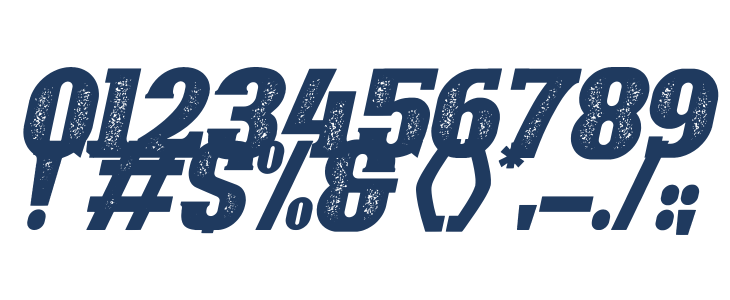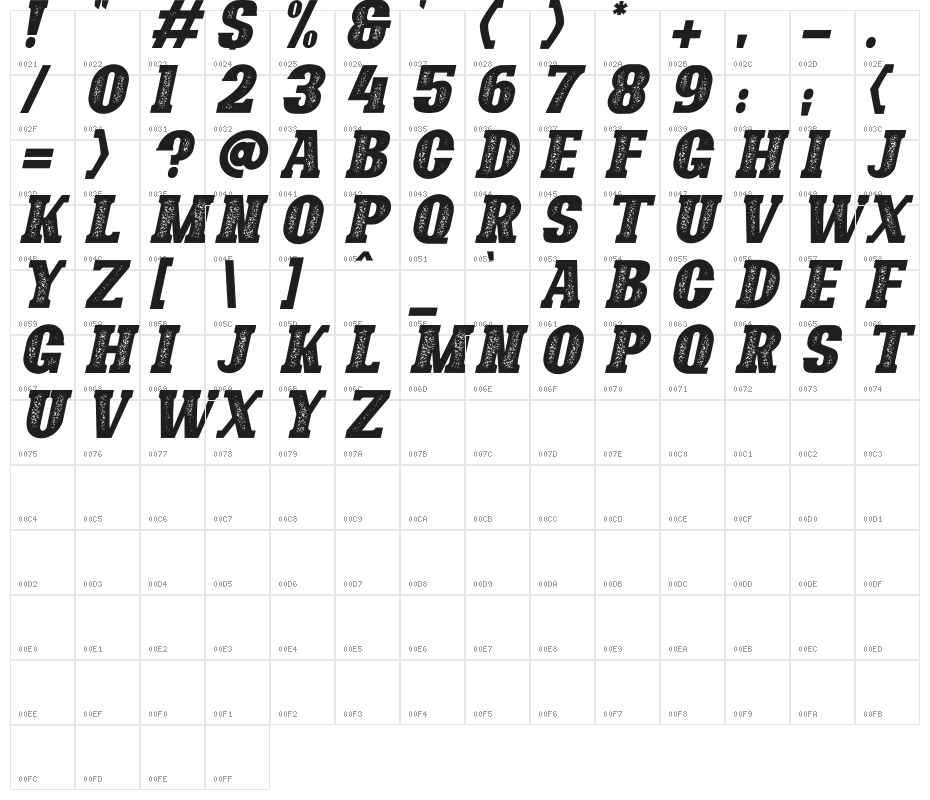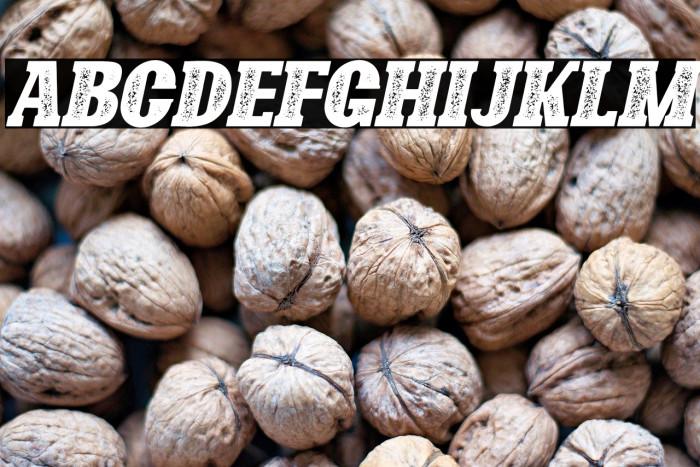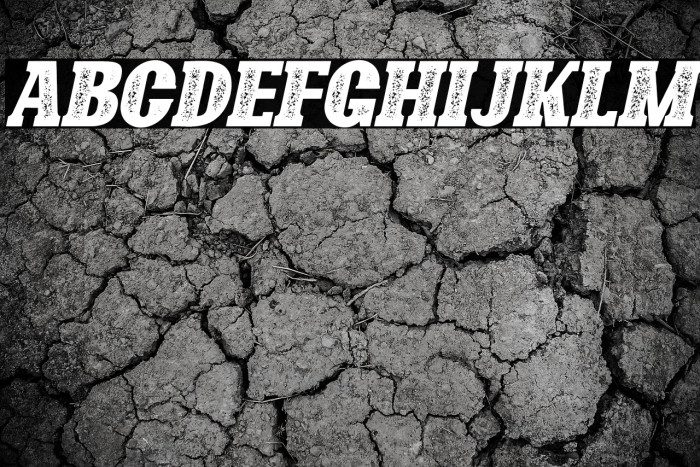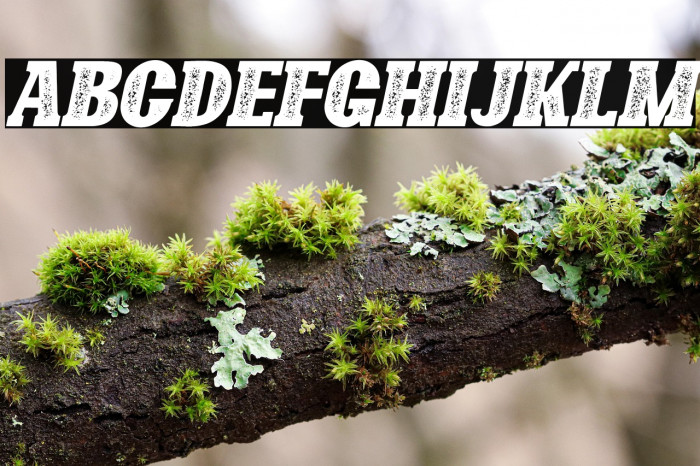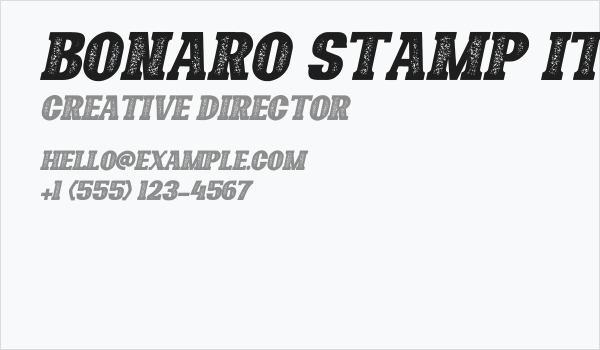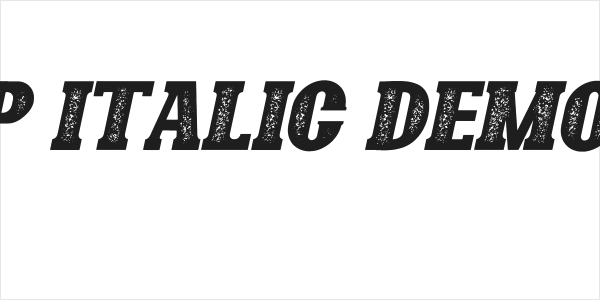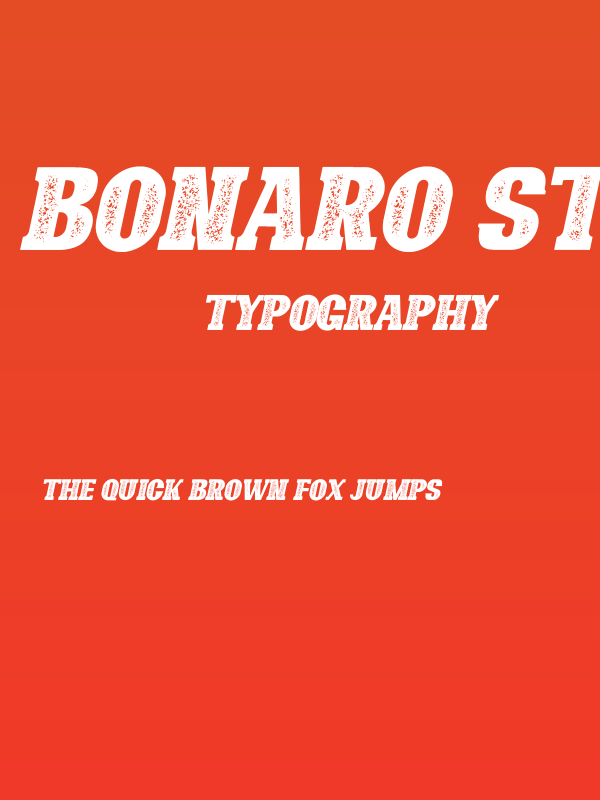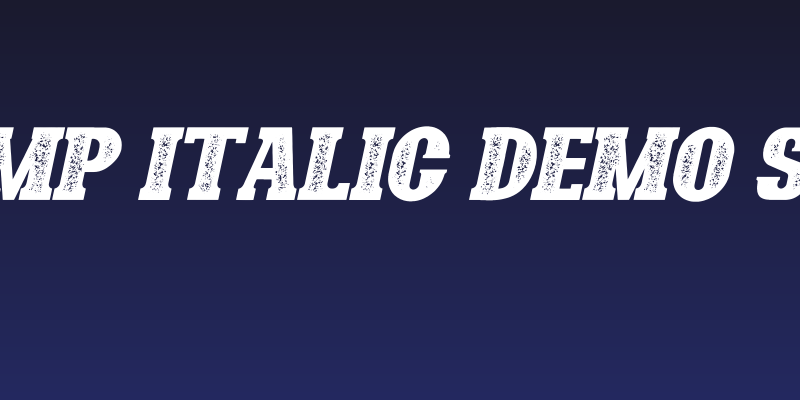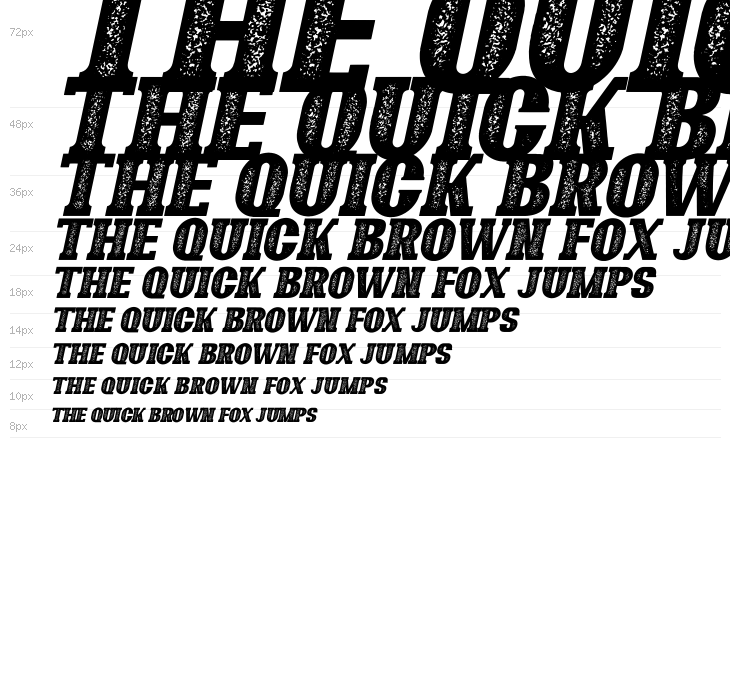
Bonaro Stamp Italic Demo Stamp Italic Font
Bonaro Stamp Italic Demo Stamp Italic Description
This font features a bold, italicized style with a distressed, stamped appearance. The characters are robust and impactful, with a textured effect that gives them a vintage, worn look. The uppercase and lowercase letters maintain consistent proportions, while the numbers and special characters follow the same stylistic theme. The font's boldness and slanted form make it stand out, ideal for creating a strong visual impact. The distressed texture adds a layer of depth and character, making it suitable for projects that require a rustic or industrial feel.
| Proposed Projects | Ideal for vintage-themed designs, posters, branding, and packaging that require a bold, textured look. |